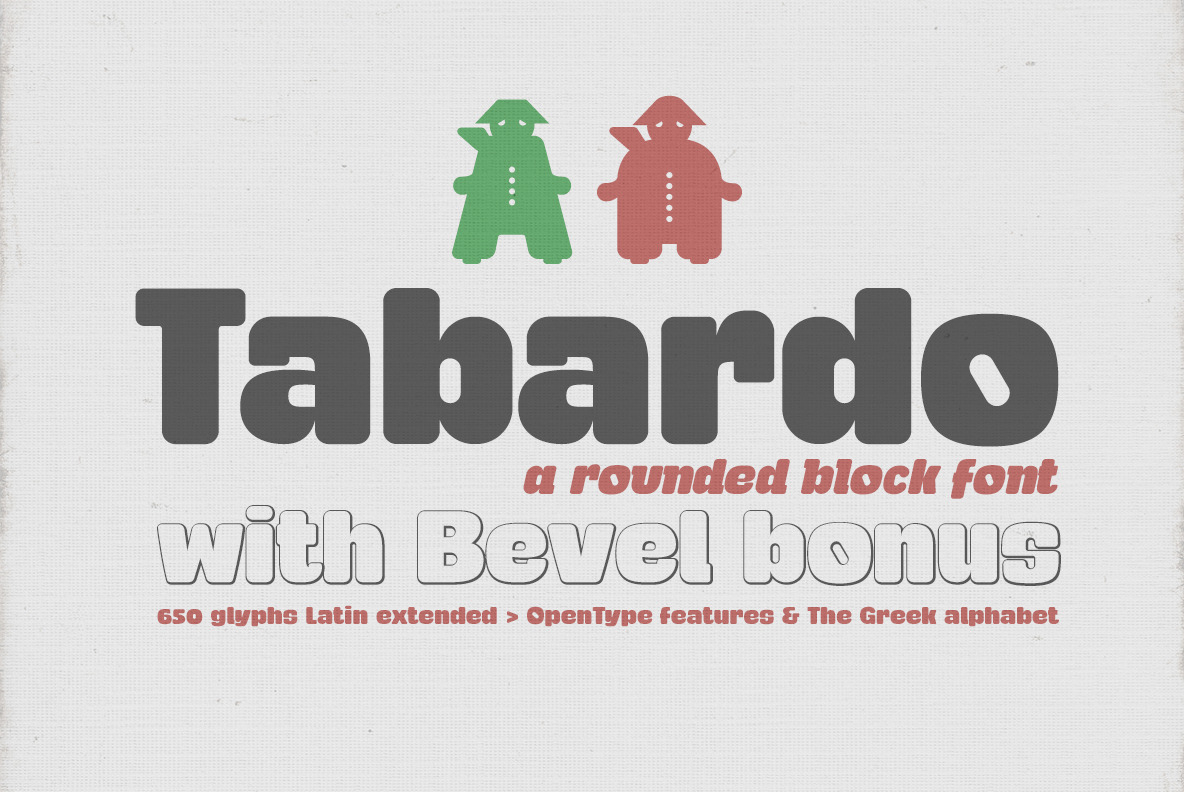
Tabardo font + bonus
Sans Serif display typeface, decorative with square proportions, very thick and rounded. The close spacing between characters and the detailed configuration Kerning make this typeface is very legible. I hope you find it useful for titles, banners, posters or graphic design which seeks a robust and spectacular style.
- Active ligatures and combine the following keys to view the icons: GC CH
Tabardo family includes:
- 650 glyphs Latin Extended + Greek alphabet
- OpenType functions: Alternative characters • Numbers old style • Numbers Small Caps • Ligatures • Fractions • Currency • Denominators • Numerators • Subscript • Superscript.
Latin-Extended-A Character Set & Supported Languages: Afrikaans, Albanian, Basque, Bosnian, Breton, Catalan, Cornish, Croatian, Czech, Danish, Dutch, English, Esperanto, Estonian, Faroese, Finnish, French, Frisian, Friulian, Gaelic (Irish, Scots), Gagauz (Latin), Galician, German, Greek, Hungarian, Icelandic, Indonesian, Irish, Italian, Karelian, Ladin, Latvian, Lithuanian, Maltese, Moldavian (Latin), Norwegian, Polish, Portuguese, Rhaeto-Romanic, Romanian, Saami (Southern), Serbian, Slovak, Slovenian, Sorbian, Spanish, Swahili, Swedish, Turkmen (Latin).